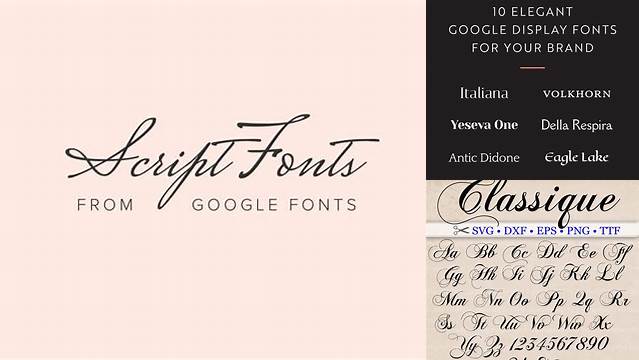
Elegant Cursive Fonts: Free Google Font Picks!
Hey guys! Are you looking to add a touch of elegance and personality to your designs? Well, you've come to the right place! Cursive fonts are a fantastic way to do just that, and the best part is that Google Fonts offers a treasure trove of amazing options. In this article, we'll explore a wide range of cursive font google fonts to help you find the perfect fit for your project. Get ready to dive into the world of beautiful, flowing typography!
1. Understanding the Allure of Cursive Fonts
Cursive fonts, with their flowing strokes and handwritten feel, evoke a sense of elegance, personalization, and artistry. Unlike more rigid and structured fonts, cursive typefaces mimic the natural rhythm of handwriting, lending a human touch to digital designs. The allure of cursive fonts lies in their ability to convey emotions, create visual interest, and add a touch of sophistication to various applications. From wedding invitations and greeting cards to logos and branding materials, cursive fonts can elevate the aesthetic appeal and leave a lasting impression on viewers. By carefully selecting the right cursive font, designers can create a unique and memorable brand identity, capture the essence of a special occasion, or simply add a touch of personality to their creative projects. When choosing the right cursive fonts, you must consider the readability. So, you have to experiment with different cursive fonts to find the one that works best for your project.
2. Exploring the Google Fonts Library for Cursive Options
The Google Fonts library is a vast repository of freely available typefaces, offering a diverse range of styles, weights, and designs. Within this extensive collection, designers can find a plethora of cursive fonts to suit their specific needs and preferences. Exploring the Google Fonts library for cursive options allows users to easily browse, preview, and select fonts that align with their project goals. With its user-friendly interface and intuitive search functionality, the platform makes it simple to discover hidden gems and popular choices among cursive fonts. Whether you're seeking a classic script, a modern calligraphy style, or a whimsical handwritten typeface, the Google Fonts library provides an abundance of options to explore and experiment with. One of the best things about Google Fonts is that you can easily embed them on your website or use them in your designs without having to worry about licensing issues. So, start exploring the Google Fonts library today and find the perfect cursive font for your next project!
3. Popular Cursive Google Fonts for Elegant Designs
When it comes to elegant designs, certain cursive fonts from Google Fonts consistently stand out for their beauty, versatility, and readability. These popular cursive Google Fonts have gained recognition for their ability to enhance the aesthetic appeal of various projects, ranging from wedding invitations and greeting cards to logos and branding materials. Among the most sought-after options are:
- Great Vibes: A classic and refined script typeface that exudes sophistication and charm.
- Lobster: A bold and playful cursive font that adds a touch of retro flair to designs.
- Pacifico: A casual and friendly handwritten font that evokes a sense of warmth and authenticity.
- Dancing Script: A lively and energetic cursive font that brings movement and personality to text.
- Caveat: A modern and minimalist cursive font that offers a clean and contemporary look.
These popular cursive Google Fonts are just a few examples of the many exquisite options available to designers seeking to create elegant and captivating visuals. By experimenting with different styles, weights, and combinations, you can unlock the full potential of these typefaces and elevate your designs to new heights. Don't be afraid to try out different pairings and see what works best for your project!
4. Pairing Cursive Fonts with Other Font Styles
While cursive fonts can be stunning on their own, combining them with other font styles can create visually appealing and balanced designs. Pairing cursive fonts with other font styles allows designers to add contrast, hierarchy, and visual interest to their projects, resulting in more engaging and impactful compositions. When selecting complementary font styles, it's important to consider factors such as readability, legibility, and overall aesthetic harmony. Generally, pairing cursive fonts with sans-serif or serif fonts can create a pleasing contrast that enhances the readability of the text. For example, using a cursive font for headings or titles and a sans-serif font for body text can help to create a clear visual hierarchy and improve the overall user experience. Ultimately, the key to successful pairing cursive fonts with other font styles is to experiment, explore different combinations, and trust your artistic intuition. Don't be afraid to break the rules and create unique and unexpected pairings that reflect your personal style and design vision. Just make sure that the fonts you choose complement each other and don't clash.
5. Using Cursive Fonts for Logos and Branding
Cursive fonts can be a powerful tool for creating memorable and distinctive logos and branding materials. Their flowing strokes and handwritten feel can evoke a sense of elegance, personalization, and artistry, making them ideal for businesses seeking to convey a sense of sophistication and craftsmanship. Using cursive fonts for logos and branding allows companies to create a unique visual identity that sets them apart from competitors. However, it's important to choose cursive fonts carefully, considering factors such as readability, legibility, and overall brand aesthetic. A cursive font that is too ornate or difficult to read can detract from the effectiveness of the logo and make it difficult for customers to recognize the brand. Additionally, using cursive fonts for logos and branding requires careful consideration of the target audience and the message that the company wants to convey. A cursive font that is too formal or traditional may not be appropriate for a brand that caters to a younger demographic or seeks to project a more modern and edgy image. With careful selection and thoughtful implementation, cursive fonts can be a valuable asset for creating logos and branding materials that resonate with customers and leave a lasting impression. Make sure that the cursive font you choose aligns with your brand's personality and values.
6. The Readability Considerations for Cursive Typefaces
While cursive fonts can add a touch of elegance and personality to designs, it's crucial to consider their readability, especially when used in large blocks of text or for critical information. Readability considerations for cursive typefaces involve assessing how easily the letters can be distinguished and processed by the human eye. Unlike more structured fonts, cursive typefaces often feature intricate strokes, loops, and connections that can make them challenging to read, particularly for individuals with visual impairments or dyslexia. Therefore, readability considerations for cursive typefaces are very important to your readers' experience. When selecting a cursive font, it's important to prioritize legibility and ensure that the letters are clear, well-defined, and easily distinguishable from one another. Additionally, readability considerations for cursive typefaces involve considering the font size, line height, and spacing between letters and words. Smaller font sizes and tighter spacing can exacerbate readability issues, while larger font sizes and generous spacing can improve legibility and reduce eye strain. Ultimately, the key to ensuring readability with cursive fonts is to test them thoroughly with a variety of users and in different contexts to identify any potential issues and make necessary adjustments.
7. Best Practices for Implementing Cursive Fonts in Web Design
When implementing cursive fonts in web design, it's essential to follow best practices to ensure optimal readability, accessibility, and user experience. Best practices for implementing cursive fonts in web design involve considering factors such as font size, line height, color contrast, and responsiveness. It's important to choose a cursive font that is legible at various screen sizes and resolutions, and to avoid using excessively ornate or decorative fonts that can detract from the overall readability of the website. Additionally, best practices for implementing cursive fonts in web design involve using CSS to control the appearance and behavior of the text, such as adjusting the font size, line height, and letter spacing to improve readability and visual appeal. It's also important to ensure that the cursive fonts are properly loaded and rendered across different browsers and devices, and to provide fallback options for users who may not have the necessary fonts installed on their systems. By following these best practices, web designers can effectively incorporate cursive fonts into their designs while ensuring a positive and accessible user experience. Remember to test your website on different devices and browsers to ensure that the cursive fonts are rendering correctly.
8. Free Cursive Fonts vs. Premium Cursive Fonts
When selecting cursive fonts for your design projects, you'll typically encounter two main categories: free and premium. Free cursive fonts vs. premium cursive fonts differ in terms of cost, licensing, quality, and features. Free cursive fonts are typically available for download and use without any associated fees, making them an attractive option for designers on a budget. However, free fonts may have limitations in terms of design quality, character set, and licensing restrictions. On the other hand, premium cursive fonts typically require a purchase or subscription fee, but they often offer higher quality designs, more extensive character sets, and more flexible licensing terms. Premium cursive fonts may also come with additional features such as alternate glyphs, ligatures, and stylistic variations that can enhance the overall aesthetic appeal of your designs. Ultimately, the choice between free and premium cursive fonts depends on your specific needs, budget, and design goals. If you're looking for a cost-effective solution for personal or non-commercial projects, free cursive fonts may suffice. However, if you require higher quality designs, more extensive features, and greater flexibility for commercial use, premium cursive fonts may be a better investment. Make sure to read the licensing terms carefully before using any font in your project.
9. How to Download and Install Google Fonts
Downloading and installing Google Fonts is a straightforward process that allows you to easily access a wide range of typefaces for your design projects. How to download and install Google Fonts involves several simple steps:
- Visit the Google Fonts website: Navigate to fonts.google.com in your web browser.
- Browse and select fonts: Explore the extensive library of fonts and select the ones you want to download. You can use the search filters to narrow down your options by style, category, and language.
- Add fonts to your collection: Once you've found the fonts you like, click the "+" icon next to each font to add them to your collection.
- Download the fonts: Click the "Download" button in the upper right corner of the screen to download a ZIP file containing the selected fonts.
- Install the fonts: Extract the contents of the ZIP file to a folder on your computer. Then, double-click on each font file (usually with a .ttf or .otf extension) and click the "Install" button to install the font on your system.
Once the fonts are installed, they will be available for use in your design software and other applications. You can also embed Google Fonts directly into your website by adding a few lines of code to your HTML file. Refer to the Google Fonts documentation for more information on how to do this. Enjoy your new fonts!
10. Using Cursive Fonts in Social Media Graphics
Cursive fonts can be a great way to add personality and flair to your social media graphics. Using cursive fonts in social media graphics can help you create eye-catching visuals that stand out from the crowd and attract attention. However, it's important to use cursive fonts judiciously and to consider the overall aesthetic of your brand. A cursive font that is too ornate or difficult to read can detract from the effectiveness of your social media graphics and make it difficult for your audience to understand your message. Therefore, using cursive fonts in social media graphics involves choosing fonts that are legible, visually appealing, and consistent with your brand's identity. You should also consider the context in which the cursive font will be used and the target audience that you're trying to reach. A cursive font that is appropriate for a wedding invitation may not be suitable for a social media post promoting a tech product. With careful selection and thoughtful implementation, cursive fonts can be a valuable asset for creating social media graphics that engage your audience and enhance your brand's visibility. Remember to optimize your graphics for different social media platforms.
11. The Impact of Cursive Fonts on Brand Perception
The choice of font, including cursive fonts, can significantly impact how your brand is perceived by customers and the public. The impact of cursive fonts on brand perception is a crucial aspect of branding that designers and marketers need to consider carefully. Cursive fonts, with their flowing strokes and handwritten feel, can evoke a range of emotions and associations, from elegance and sophistication to warmth and authenticity. The use of cursive fonts on brand perception can influence how customers perceive your brand's personality, values, and overall image. For example, a luxury brand may choose a cursive font to convey a sense of exclusivity and refinement, while a small business may use a cursive font to project a more personal and approachable image. However, it's important to ensure that the cursive font aligns with your brand's identity and target audience. A cursive font that is too formal or traditional may not be appropriate for a brand that caters to a younger demographic or seeks to project a more modern and edgy image. By carefully considering the impact of cursive fonts on brand perception, you can create a visual identity that resonates with your target audience and enhances your brand's overall effectiveness.
12. Cursive Fonts and Their Cultural Significance
Cursive fonts, beyond their aesthetic appeal, often carry cultural significance that can influence their perception and usage. Cursive fonts and their cultural significance are intertwined with the history of handwriting and calligraphy, which have played important roles in various cultures throughout the world. In some cultures, cursive fonts are associated with elegance, tradition, and formality, while in others, they may be seen as more casual and informal. The association of cursive fonts and their cultural significance can vary depending on factors such as historical context, geographical location, and social customs. For example, in Western cultures, cursive fonts are often used in formal documents, wedding invitations, and other occasions where a sense of sophistication is desired. In contrast, in some Asian cultures, calligraphy is considered a highly respected art form, and cursive fonts are often used in traditional artwork and religious texts. Understanding cursive fonts and their cultural significance can help designers and marketers to make informed decisions about font selection and usage, ensuring that their designs are culturally sensitive and appropriate for their target audience. So, be mindful of the cultural implications of your font choices.
13. The Future of Cursive Fonts in Digital Design
As digital design continues to evolve, the role of cursive fonts is also changing, with new trends and technologies shaping their future. The future of cursive fonts in digital design is likely to be influenced by factors such as the increasing use of responsive design, the growing popularity of mobile devices, and the emergence of new font technologies. One possible direction of the future of cursive fonts in digital design is the development of more versatile and adaptable cursive fonts that can be easily customized and optimized for different screen sizes and resolutions. Another trend is the increasing use of variable fonts, which allow designers to adjust various aspects of a font, such as weight, width, and slant, to create a wide range of variations from a single font file. Additionally, the future of cursive fonts in digital design may see the integration of artificial intelligence and machine learning technologies to automate the font selection process and generate personalized font recommendations based on individual preferences and design goals. Overall, the future of cursive fonts in digital design is likely to be dynamic and exciting, with new opportunities for designers to explore the creative potential of these elegant and expressive typefaces. Get ready for some exciting innovations in the world of cursive fonts!
14. Common Mistakes to Avoid When Using Cursive Fonts
While cursive fonts can add a touch of elegance and personality to designs, it's important to avoid common mistakes that can undermine their effectiveness and detract from the overall aesthetic appeal. Common mistakes to avoid when using cursive fonts include:
- Overusing cursive fonts: Using cursive fonts for large blocks of text or for critical information can make it difficult for readers to understand the message.
- Choosing illegible cursive fonts: Selecting a cursive font that is too ornate or difficult to read can detract from the effectiveness of the design and make it difficult for the audience to engage with the content.
- Inconsistent font pairing: Combining cursive fonts with other font styles that clash or create visual disharmony can create a confusing and unappealing design.
- Ignoring font licensing: Using cursive fonts without properly obtaining the necessary licenses can result in legal issues and damage the brand's reputation.
To avoid these common mistakes when using cursive fonts, it's important to carefully consider the readability, legibility, and overall aesthetic harmony of the design. Designers should also ensure that they have the necessary licenses to use the fonts in their projects and that they follow best practices for font pairing and typography. Remember, less is often more when it comes to cursive fonts.
15. Cursive Fonts for Wedding Invitations: A Classic Choice
Cursive fonts have long been a classic choice for wedding invitations, adding a touch of elegance, romance, and sophistication to this special occasion. Cursive fonts for wedding invitations evoke a sense of tradition and formality, while also conveying the personal touch of the couple. The selection of cursive fonts for wedding invitations is often influenced by the overall theme and style of the wedding, with options ranging from classic and refined scripts to modern and whimsical calligraphic styles. When choosing cursive fonts for wedding invitations, it's important to consider factors such as readability, legibility, and overall aesthetic harmony. A cursive font that is too ornate or difficult to read can detract from the effectiveness of the invitation and make it difficult for guests to understand the details of the event. Therefore, cursive fonts for wedding invitations need to be very readable. Designers should also ensure that the cursive font complements the other design elements, such as the paper stock, ink color, and embellishments. With careful selection and thoughtful implementation, cursive fonts can be a valuable asset for creating wedding invitations that reflect the couple's personality and style and set the tone for a memorable celebration.
16. Cursive Fonts and Accessibility: Balancing Style and Usability
When using cursive fonts in digital design, it's crucial to consider accessibility to ensure that the content is usable by people with disabilities. Cursive fonts and accessibility can sometimes be at odds, as the ornate and decorative nature of cursive fonts can make them difficult to read for people with visual impairments or dyslexia. Balancing style and usability with cursive fonts requires careful consideration of factors such as font size, line height, color contrast, and alternative text. It's important to choose a cursive font that is legible at various screen sizes and resolutions, and to provide sufficient contrast between the text and the background color. Additionally, balancing style and usability with cursive fonts involves providing alternative text descriptions for images that contain cursive fonts, so that screen readers can convey the content to users with visual impairments. Designers should also avoid using cursive fonts for large blocks of text or for critical information, as this can make it difficult for people with cognitive disabilities to process the information. By following these best practices, designers can effectively incorporate cursive fonts into their designs while ensuring that the content is accessible to all users.
17. Cursive Fonts in Print Design: Tips for Optimal Results
Cursive fonts can add a touch of elegance and personality to print design projects, but it's important to follow certain tips to ensure optimal results. Cursive fonts in print design require careful consideration of factors such as font size, line height, paper stock, and printing method. When using cursive fonts in print design, it's important to choose a cursive font that is legible at the intended print size and to avoid using excessively thin or delicate fonts that may not reproduce well on certain paper stocks. Additionally, cursive fonts in print design involve using appropriate line height and letter spacing to improve readability and prevent the letters from running together. Designers should also consider the printing method and ink color, as certain printing methods may produce better results with cursive fonts than others. Another thing to note for cursive fonts in print design is to test the design on the intended paper stock before printing the final product to ensure that the cursive font looks crisp and clear. By following these tips, designers can effectively incorporate cursive fonts into their print designs and achieve stunning results. Make sure to proofread your designs carefully before printing.
18. Cursive Fonts and Mobile Responsiveness: Adapting to Different Screens
In today's mobile-first world, it's essential to ensure that cursive fonts are mobile responsive and adapt seamlessly to different screen sizes and resolutions. Cursive fonts and mobile responsiveness require careful consideration of factors such as font size, line height, and text scaling. When using cursive fonts and mobile responsiveness, it's important to choose a cursive font that is legible on smaller screens and to avoid using excessively ornate or decorative fonts that may become difficult to read on mobile devices. Additionally, cursive fonts and mobile responsiveness involve using CSS media queries to adjust the font size and line height of the text based on the screen size and orientation. Designers should also ensure that the text scales appropriately on different devices and that the cursive font doesn't break or wrap in unexpected ways. Another thing to note for cursive fonts and mobile responsiveness is to test the design on a variety of mobile devices to ensure that the cursive font looks crisp, clear, and legible on all screens. By following these best practices, designers can effectively incorporate cursive fonts into their mobile designs and provide a seamless user experience across all devices.
19. The Psychology of Cursive Fonts: How They Evoke Emotions
Cursive fonts have a unique ability to evoke emotions and influence the perception of a design. The psychology of cursive fonts lies in their association with handwriting, which is often seen as more personal, intimate, and expressive than other forms of typography. When using cursive fonts, the psychology behind their effect depends on the specific cursive font used, the context in which it's used, and the target audience. Some cursive fonts may evoke feelings of elegance, sophistication, and luxury, while others may evoke feelings of warmth, friendliness, and nostalgia. The power of the psychology of cursive fonts can be influenced by factors such as the color, size, and placement of the text, as well as the overall design aesthetic. Designers can use cursive fonts strategically to create designs that resonate with their target audience and convey the desired emotions and messages. When considering the psychology of cursive fonts, it's important to understand the cultural and historical associations of different cursive fonts, as these associations can influence how the cursive font is perceived. By understanding the psychology of cursive fonts, designers can create more effective and impactful designs that connect with their audience on an emotional level.
20. Advanced Techniques for Customizing Cursive Fonts
For designers who want to take their typography to the next level, there are advanced techniques for customizing cursive fonts to create unique and personalized designs. Advanced techniques for customizing cursive fonts include:
- Adjusting letter spacing and kerning: Fine-tuning the spacing between letters can improve readability and create a more polished look.
- Modifying letterforms: Altering the shape and structure of individual letters can create a more distinctive and personalized typeface.
- Adding flourishes and swashes: Incorporating decorative elements such as flourishes and swashes can enhance the elegance and expressiveness of the cursive font.
- Creating ligatures: Combining two or more letters into a single glyph can create a more seamless and visually appealing connection between letters.
Implementing advanced techniques for customizing cursive fonts requires a good understanding of typography principles and the use of specialized font editing software. Designers can also use scripting languages such as Python to automate certain customization tasks and generate unique variations of cursive fonts. When considering advanced techniques for customizing cursive fonts, it's important to maintain consistency and coherence throughout the typeface, ensuring that the customizations enhance the overall design rather than detracting from it. By mastering these advanced techniques for customizing cursive fonts, designers can create truly unique and memorable typefaces that set their designs apart from the competition.
21. Cursive Fonts and Visual Hierarchy: Guiding the Reader's Eye
Cursive fonts can be a powerful tool for creating visual hierarchy in designs, guiding the reader's eye and emphasizing important information. Cursive fonts and visual hierarchy require careful consideration of factors such as font size, weight, and placement. When using cursive fonts and visual hierarchy, it's important to use cursive fonts sparingly and strategically, reserving them for headings, subheadings, or other key elements that you want to stand out. Additionally, cursive fonts and visual hierarchy involve using different font sizes and weights to create contrast and hierarchy within the text. For example, you can use a larger and bolder cursive font for the main heading and a smaller and lighter cursive font for the subheadings. Designers should also consider the placement of the text and use techniques such as alignment, spacing, and indentation to create a clear visual structure. Another important thing to note for cursive fonts and visual hierarchy is to ensure that the visual hierarchy is consistent throughout the design, so that readers can easily navigate the content and understand the relative importance of different elements. By effectively using cursive fonts to create visual hierarchy, designers can improve the readability and usability of their designs and guide the reader's eye to the most important information.
22. The Ethical Considerations of Using Cursive Fonts
When using cursive fonts in design, it's important to consider the ethical implications of your font choices. The ethical considerations of using cursive fonts encompass a range of issues, including font licensing, accessibility, and cultural sensitivity. When considering the ethical considerations of using cursive fonts, it's important to ensure that you have the necessary licenses to use the fonts in your projects and that you are not violating any copyright laws. Additionally, the ethical considerations of using cursive fonts involve ensuring that your designs are accessible to people with disabilities, including those with visual impairments or dyslexia. Designers should also be mindful of the cultural associations of different cursive fonts and avoid using fonts that may be offensive or culturally insensitive. Another ethical consideration of using cursive fonts is to be transparent about your font choices and to give credit to the font designers when appropriate. By considering these ethical issues, designers can ensure that their use of cursive fonts is responsible, respectful, and inclusive. Remember to always act ethically and responsibly in your design work.
23. Troubleshooting Common Issues with Cursive Fonts
Even with careful planning and execution, you may encounter issues when using cursive fonts in your designs. Troubleshooting common issues with cursive fonts can help you resolve these problems quickly and efficiently. Some common issues when troubleshooting cursive fonts include:
- Font rendering problems: Cursive fonts may not render correctly on certain browsers or devices, resulting in distorted or unreadable text.
- Font loading issues: Cursive fonts may take a long time to load, especially if they are hosted on external servers.
- Legibility problems: Cursive fonts may be difficult to read, especially at small sizes or on low-resolution screens.
- Licensing issues: You may encounter legal problems if you use cursive fonts without the necessary licenses.
To troubleshoot these common issues with cursive fonts, you can try the following:
- Test your designs on different browsers and devices: This will help you identify any rendering problems.
- Optimize your fonts for web use: This can improve font loading times.
- Choose legible cursive fonts: This will make your designs more accessible.
- Obtain the necessary licenses: This will protect you from legal problems.
By following these tips, you can troubleshoot common issues with cursive fonts and ensure that your designs look their best. If you're still having trouble, consult with a professional designer or developer.
24. Cursive Fonts and Animation: Adding Movement to Type
Cursive fonts can be brought to life through animation, adding movement and dynamism to typography. Cursive fonts and animation can create visually stunning effects, drawing the viewer's attention and enhancing the overall aesthetic appeal. When considering cursive fonts and animation, designers need to consider the specific characteristics of the cursive font, such as its weight, style, and letterforms. Additionally, cursive fonts and animation involve the use of animation software or programming languages to create the desired effects, such as letter-by-letter reveals, flowing strokes, and dynamic transformations. Designers should also consider the timing, pacing, and easing of the animations to create a smooth and natural-looking effect. Another thing to note for cursive fonts and animation is to ensure that the animations are consistent with the overall design style and brand identity. By effectively using cursive fonts and animation, designers can create captivating and memorable designs that stand out from the competition. So, get creative and experiment with different animation techniques!
25. Cursive Fonts for Invitations: Setting the Tone for Events
Cursive fonts are a classic choice for invitations, setting the tone for events ranging from weddings and parties to corporate gatherings and galas. Cursive fonts for invitations evoke a sense of elegance, sophistication, and formality, while also conveying the personal touch of the host. When considering cursive fonts for invitations, designers need to choose a cursive font that is appropriate for the occasion, considering factors such as the style of the event, the target audience, and the overall design aesthetic. Additionally, cursive fonts for invitations involve careful consideration of font size, color, and placement, as well as the choice of paper stock and printing method. Designers should also ensure that the invitations are legible and easy to read, providing all the necessary information in a clear and concise manner. Another important thing to note for cursive fonts for invitations is to proofread the invitations carefully before printing to ensure that there are no typos or errors. By effectively using cursive fonts for invitations, designers can create a lasting impression and set the stage for a memorable event. Make sure your invitations reflect the style and tone of your event.
26. The Legal Aspects of Using Google Fonts: Licensing Explained
When using Google Fonts, it's essential to understand the legal aspects of font licensing to ensure that you are using the fonts in compliance with the terms of service. The legal aspects of using Google Fonts are governed by the SIL Open Font License (OFL), which allows you to freely use, modify, and distribute the fonts for both personal and commercial purposes. The SIL Open Font License provides the legal aspects of using Google Fonts and also includes some restrictions, such as the requirement to include the OFL license with any redistributed fonts. Additionally, the legal aspects of using Google Fonts involve ensuring that you are not violating any trademark or copyright laws. While the Google Fonts themselves are free to use, the font names and logos may be protected by trademark or copyright. Designers should also be aware of any embedded fonts that may be included in the Google Fonts, as these fonts may be subject to different licensing terms. Another important thing to note for the legal aspects of using Google Fonts is to consult with a legal professional if you have any questions or concerns about font licensing. By understanding the legal aspects of using Google Fonts, designers can ensure that they are using the fonts responsibly and ethically. Always make sure you understand the licensing terms before using any font.
27. Cursive Fonts in E-commerce: Enhancing Product Presentation
Cursive fonts can play a significant role in enhancing product presentation in e-commerce, adding a touch of elegance and sophistication to product descriptions, banners, and other marketing materials. Cursive fonts in e-commerce can help to create a more visually appealing and engaging shopping experience for customers. When considering cursive fonts in e-commerce, designers need to choose a cursive font that is appropriate for the brand, the product, and the target audience. Additionally, cursive fonts in e-commerce involve careful consideration of font size, color, and placement, as well as the overall design aesthetic. Designers should also ensure that the text is legible and easy to read, providing all the necessary information in a clear and concise manner. Another important thing to note for cursive fonts in e-commerce is to optimize the fonts for web use, ensuring that they load quickly and display correctly on different browsers and devices. By effectively using cursive fonts in e-commerce, businesses can enhance their product presentation, attract more customers, and increase sales. Make sure your font choices reflect your brand's personality and values.
28. Cursive Fonts and Personalization: Adding a Human Touch
Cursive fonts are often associated with personalization, adding a human touch to designs and conveying a sense of warmth, authenticity, and individuality. Cursive fonts and personalization can be used effectively in various contexts, such as branding, marketing, and personal correspondence. When considering cursive fonts and personalization, designers need to choose a cursive font that reflects the personality and style of the individual or brand. Additionally, cursive fonts and personalization involve using the cursive font in a way that feels genuine and authentic, rather than forced or contrived. Designers should also consider the context in which the cursive font will be used and the message that they want to convey. Another important thing to note for cursive fonts and personalization is to ensure that the cursive font is legible and easy to read, especially when used for important information. By effectively using cursive fonts for personalization, designers can create designs that feel more personal, engaging, and memorable. Add a personal touch to your designs with the right cursive font.
29. The Art of Calligraphy and Its Influence on Cursive Fonts
Calligraphy, the art of beautiful writing, has had a profound influence on the development of cursive fonts throughout history. The art of calligraphy and its influence on cursive fonts can be seen in the flowing strokes, elegant curves, and intricate details that characterize many cursive fonts. When considering the art of calligraphy and its influence on cursive fonts, it's important to understand the historical context and the different styles of calligraphy that have emerged over time. From the ancient art of Chinese calligraphy to the medieval art of illuminated manuscripts, calligraphy has served as a source of inspiration for font designers around the world. Additionally, the art of calligraphy and its influence on cursive fonts can be seen in the techniques and tools used by calligraphers, such as the quill pen, the inkwell, and the ruling pen. These tools have helped to shape the form and style of cursive fonts, giving them a unique and distinctive character. Another important thing to note for the art of calligraphy and its influence on cursive fonts is that calligraphy is not just about aesthetics; it's also about communication and expression. By studying the art of calligraphy, font designers can gain a deeper understanding of the principles of typography and create cursive fonts that are not only beautiful but also functional and effective. So, appreciate the rich history and artistry behind cursive fonts.
30. Resources for Learning More About Cursive Fonts
If you're interested in learning more about cursive fonts, there are many valuable resources available online and offline. Resources for learning more about cursive fonts include:
- Books: Numerous books on typography, calligraphy, and font design can provide in-depth information about cursive fonts.
- Websites: Websites such as Google Fonts, Font Squirrel, and MyFonts offer a wealth of information about cursive fonts, including font samples, licensing details, and designer profiles.
- Online courses: Online courses on typography and font design can provide structured learning experiences and hands-on training in working with cursive fonts.
- Workshops and conferences: Workshops and conferences on typography and design offer opportunities to learn from experts and network with other designers.
- Blogs and articles: Blogs and articles on typography and design can provide insights into current trends and best practices for using cursive fonts.